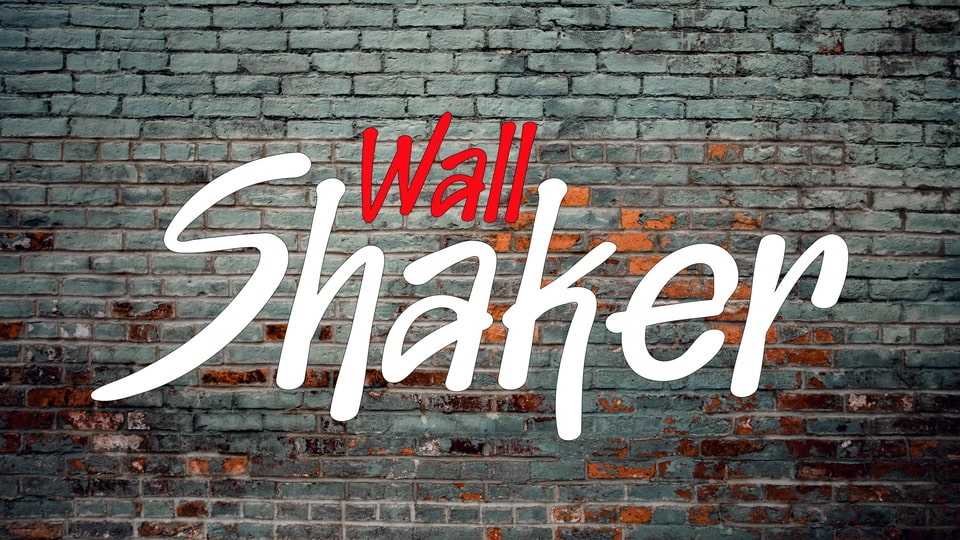
Download Wall Shaker font, the ultimate graffiti typeface for creating bold and impactful designs that demand attention. With its edgy and urban design, Wall Shaker font is perfect for creating content related to streetwear fashion, hip-hop culture, and more.